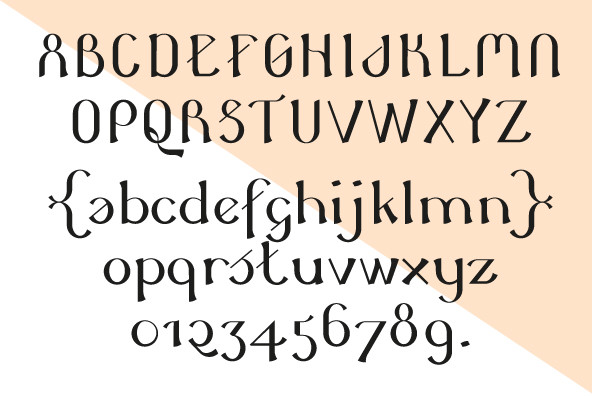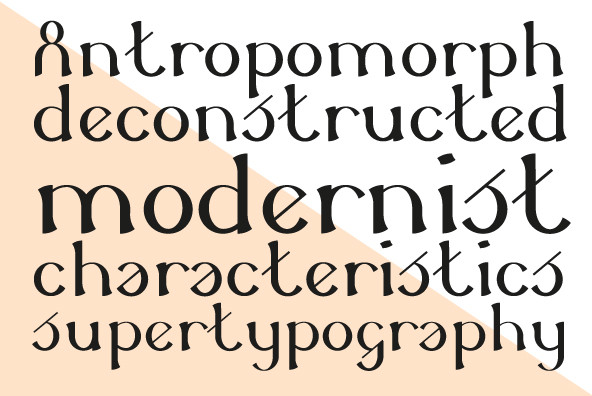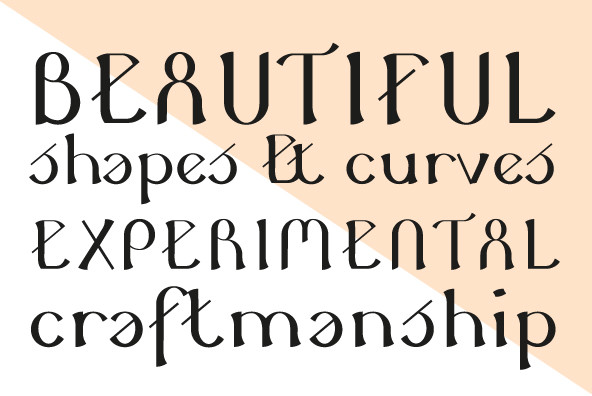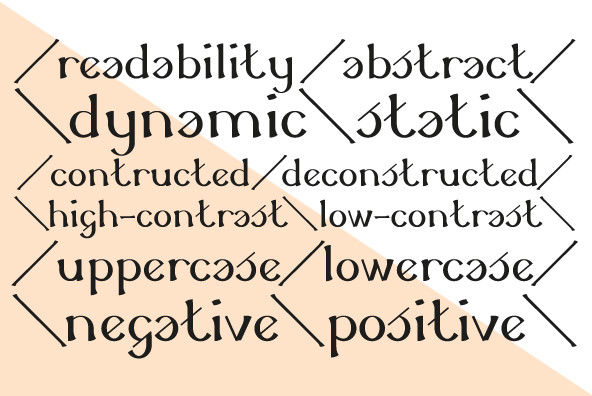
Novo Fika
Foundry: Novo Typo
An unordinary type of family: Novo Fika is part of the Novo Family (together with Novo Alla, Bila, Cela, Dada, Enno, Fika and Gigo). Allthough all members are also strong individuals, Novo Family is an exclusive selection which allows you to design beautiful typographic combinations. The Novo Family will take typography into a next fase of legibility.